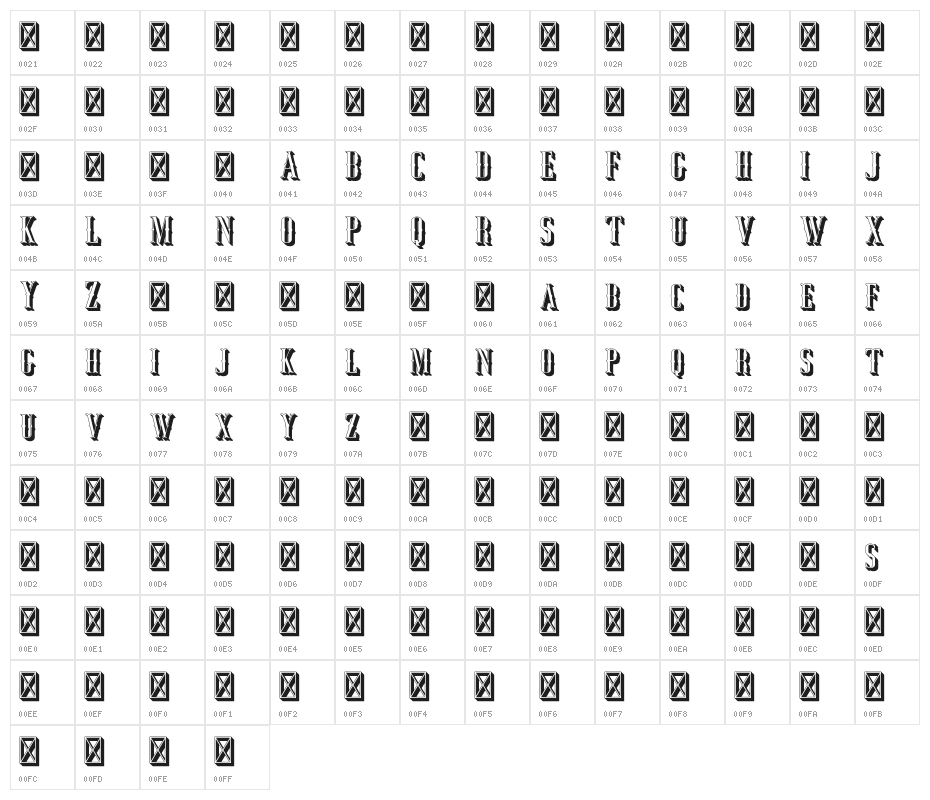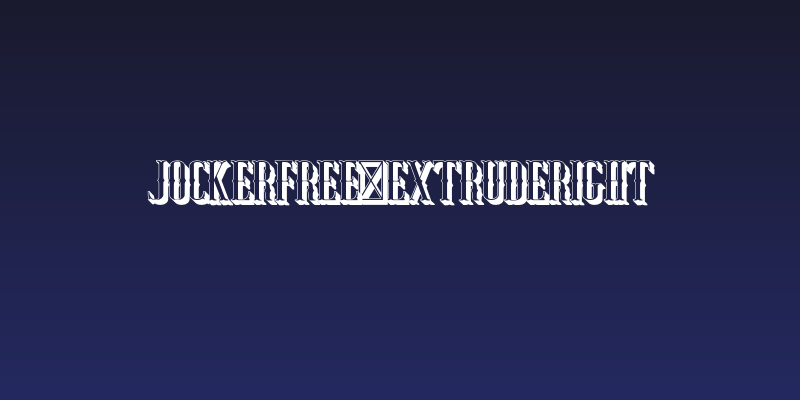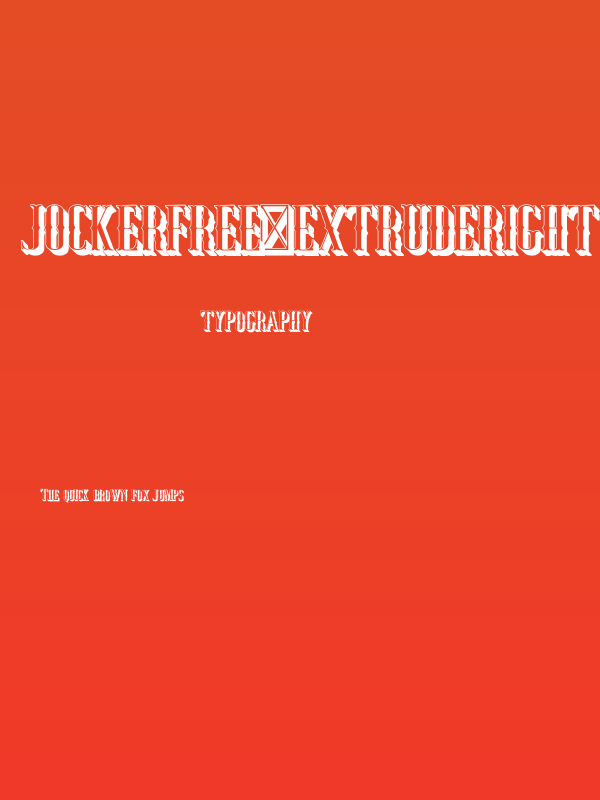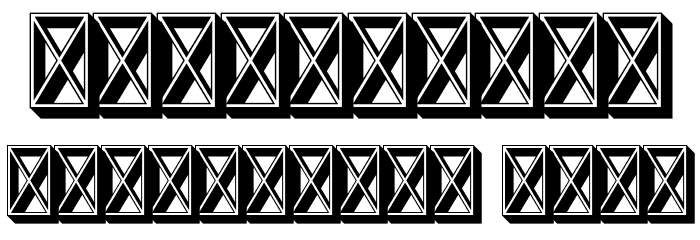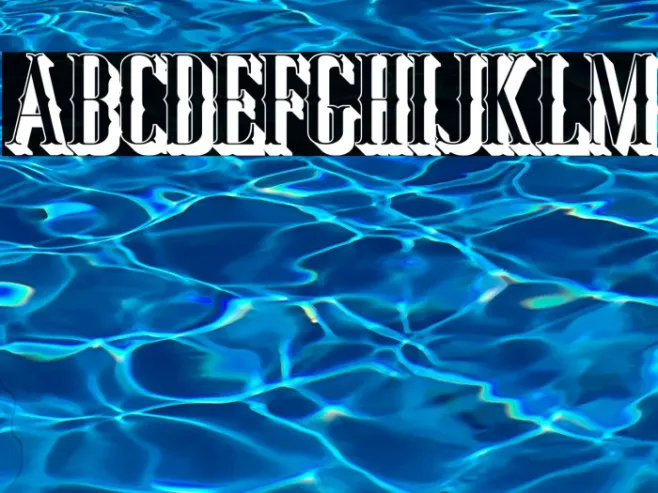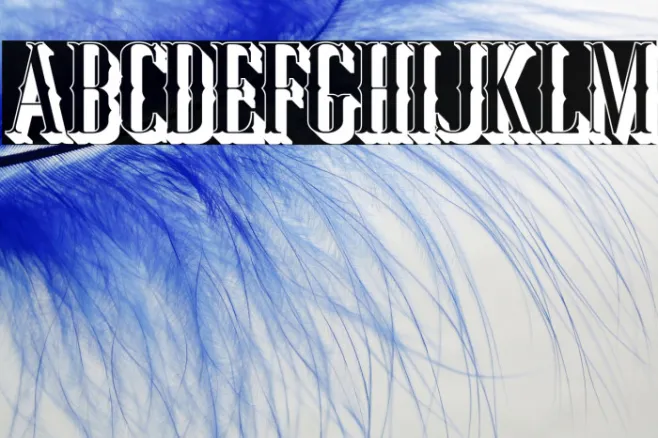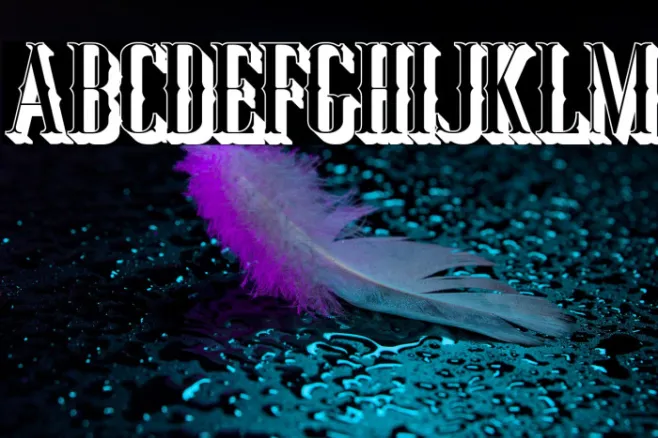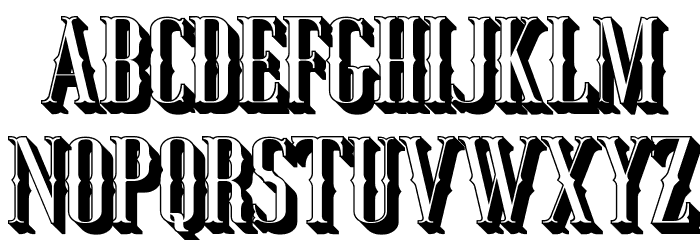
JockerFree-ExtrudeRight Font
JockerFree-ExtrudeRight Description
This font features a bold and dramatic style with a three-dimensional extruded effect that gives it a striking and impactful appearance. The characters are designed with sharp, angular edges and a shadowed outline that enhances the depth and dimension. The uppercase letters are prominent and commanding, making them ideal for attention-grabbing headlines or titles. The overall design is reminiscent of vintage poster fonts, often used in circus or carnival themes, adding a playful yet bold aesthetic. The spacing between characters is tight, contributing to its compact and cohesive look.
| Proposed Projects | Ideal for vintage-themed posters, circus or carnival event flyers, bold headlines, and artistic logos. |